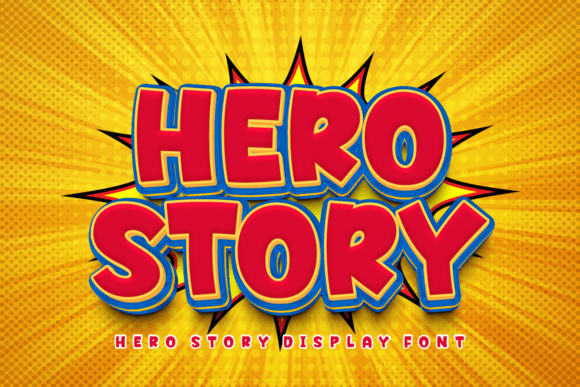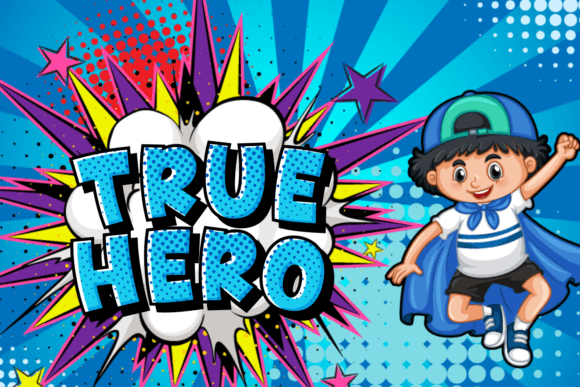
Hero Story Font
Hero Story is a thick and chubby display font. Create outstanding typography designs with this lovely font that can take any design creation out of the ordinary! It looks fabulous on book covers, magazines, kids’ t-shirts, posters, product packaging, banners, flyers, etc.